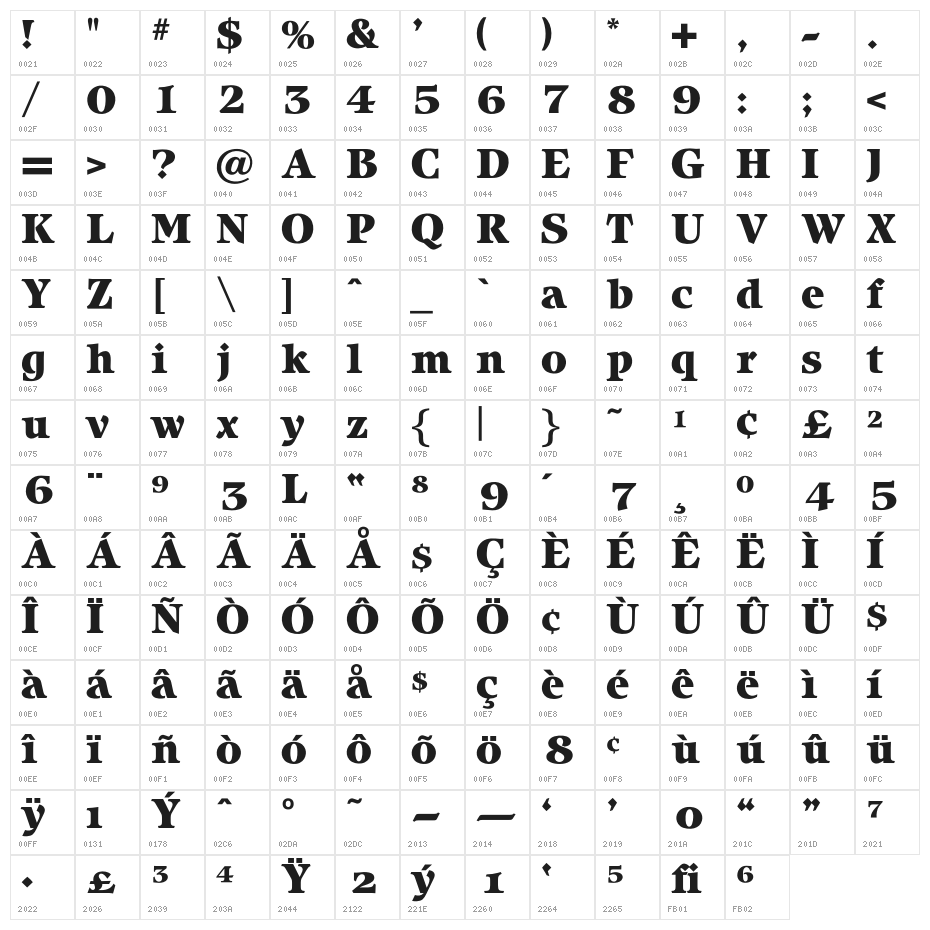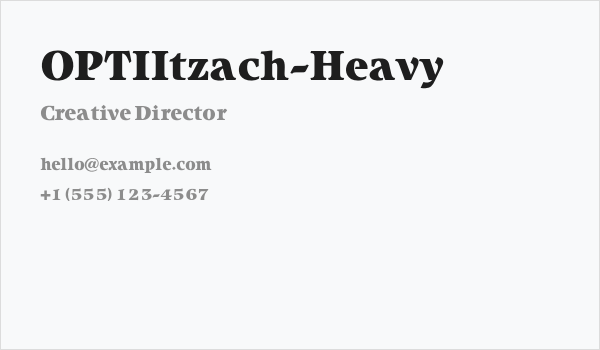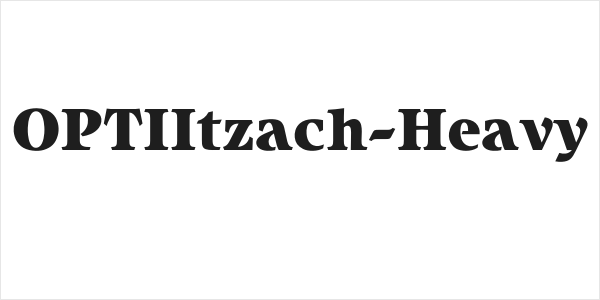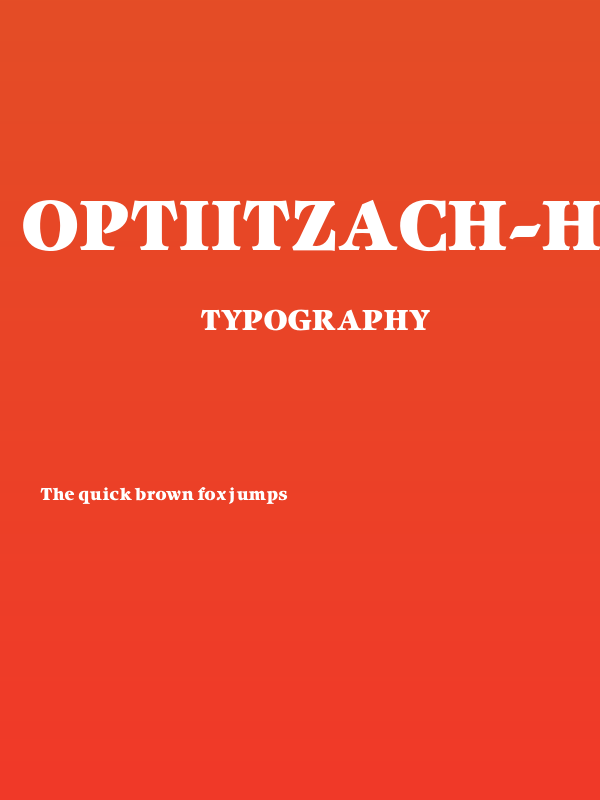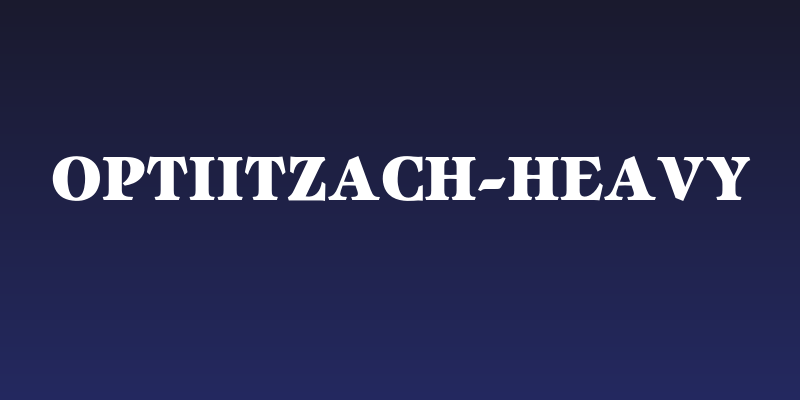
OPTIItzach-Heavy Font
OPTIItzach-Heavy Description
This font features a bold and commanding presence with its heavy weight and strong serif design. The characters are well-defined with thick strokes that convey a sense of authority and confidence. The uppercase letters are particularly striking, with a robust structure that makes them ideal for headlines or titles. The lowercase letters maintain the same boldness, ensuring consistency across different text sizes. Numbers and special characters are equally bold, making them stand out clearly. The font's overall style is classic yet modern, suitable for a variety of design projects.
| Proposed Projects | Ideal for use in headlines, posters, branding, and any design requiring a strong visual impact. |